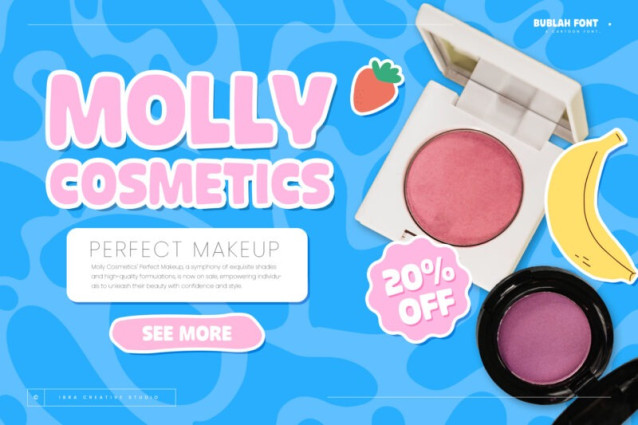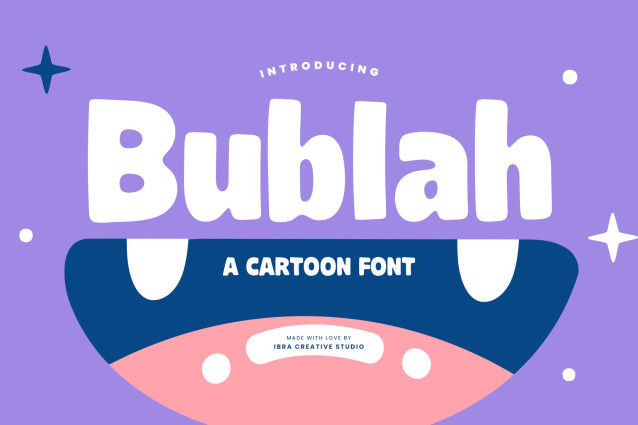
Bublah Display Font
Bublah Display Font, a whimsical cartoon font, exudes a playful and lighthearted charm that instantly transports viewers into the vibrant world of animated storytelling. With its rounded and bubbly letterforms, Bublah captures the essence of fun and creativity, making it an ideal choice for conveying a sense of childlike joy and enthusiasm. The characters dance across the page with a delightful balance of boldness and friendliness, creating a visually engaging experience that resonates with the playful spirit of cartoons. Bublah’s distinctive design ensures that each letter is a visual treat, embracing a lively aesthetic that adds a touch of animated magic to any project. Whether used for comic book titles, children’s books, or other creative endeavors, Bublah brings a sense of animated whimsy that invites audiences to embark on a delightful journey through the world of imagination.
Bublah is perfect for branding projects, logo, wedding designs, social media posts, advertisements, product packaging, product designs, label, photography, watermark, invitation, stationery, game, fashion and any projects.